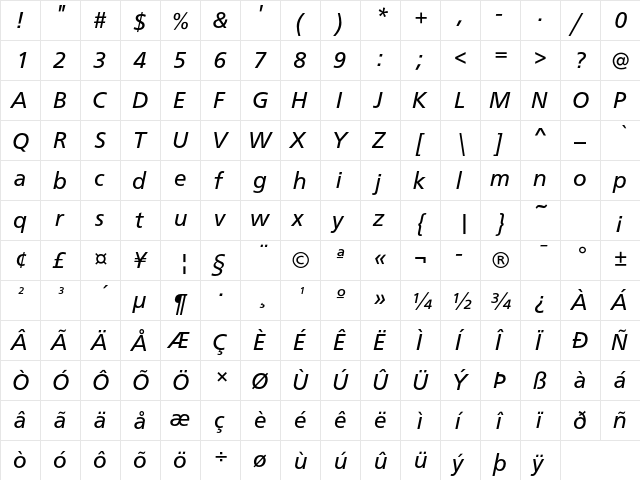
CartoGothic Std Italic
Design Context for CartoGothic Std Typeface
CartoGothic Std takes a clean, functional approach — its unadorned letterforms prioritise legibility and work reliably across screen and print environments. Its italic angle brings a sense of urgency and motion to the letterforms.
Font Pairing: Works well alongside a characterful serif or display font that can carry the expressive load while CartoGothic Std handles the functional copy.
Pro Tip: Use CartoGothic Std for UI labels, navigation, and short-form body copy where clean legibility is the priority.